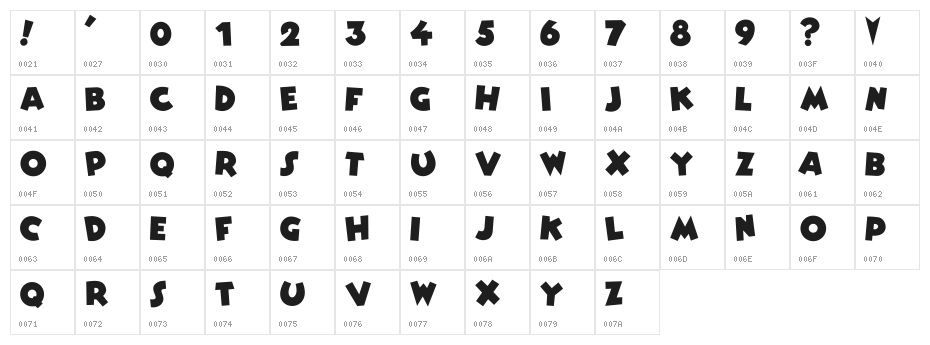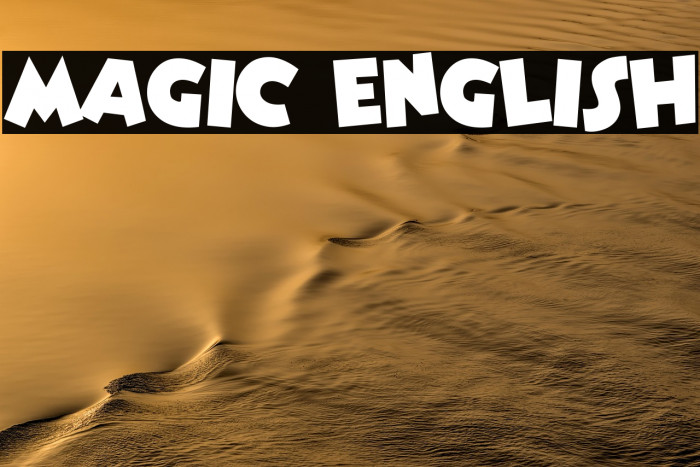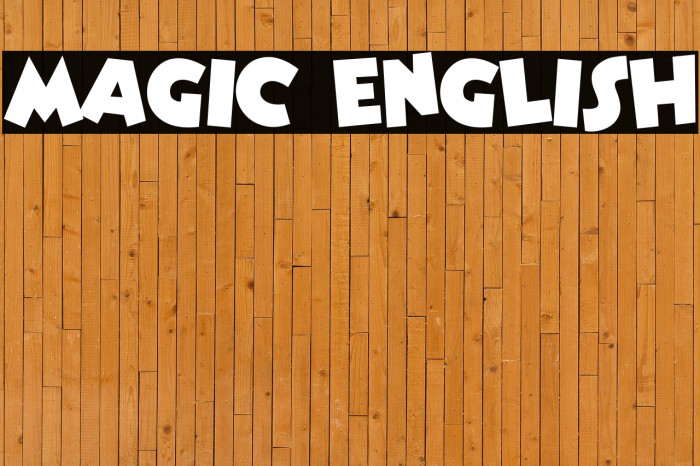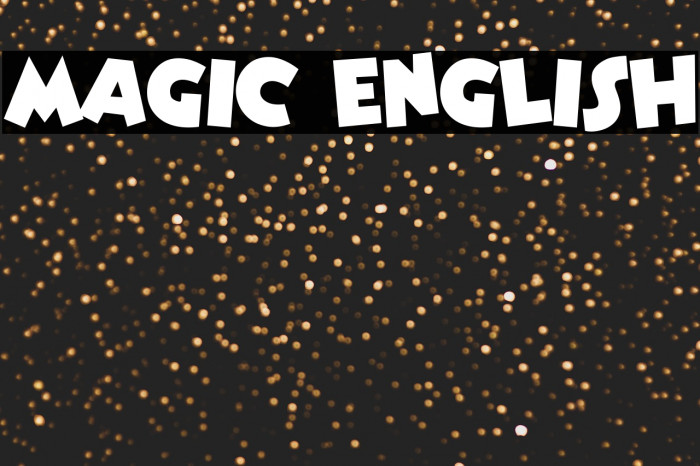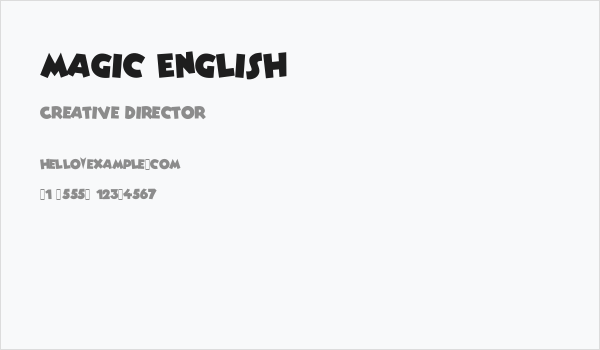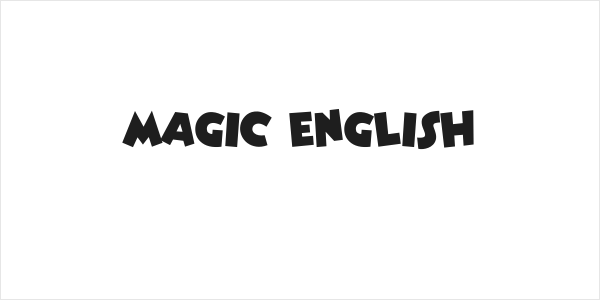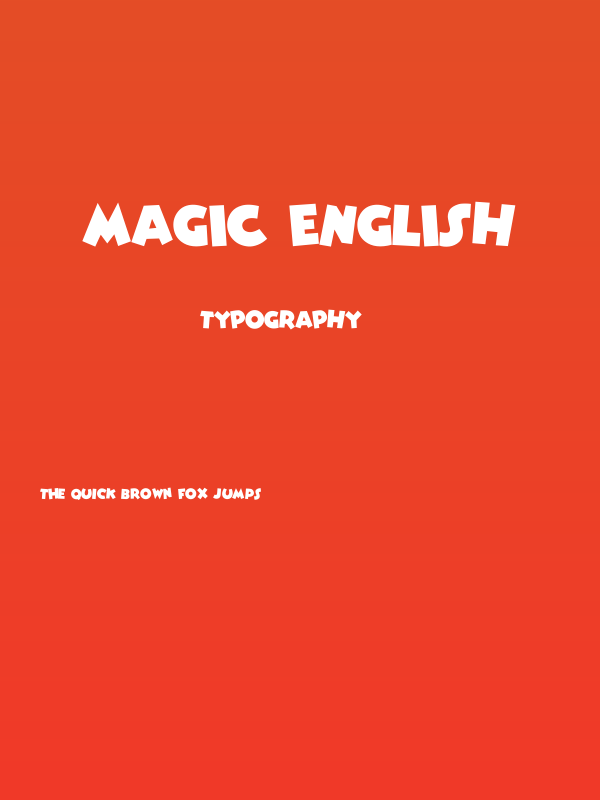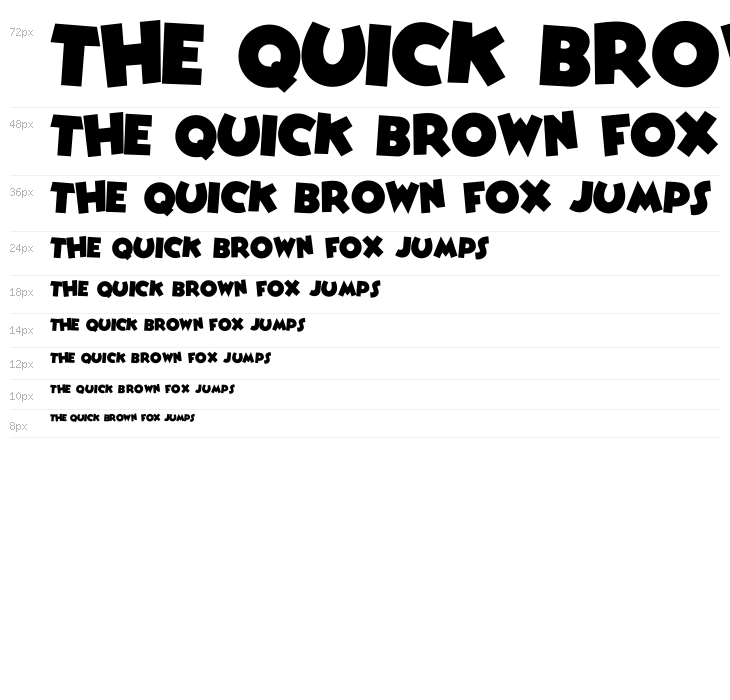
Magic English Font
Magic English Description
This playful and bold font features thick, rounded characters with a whimsical, cartoon-like appearance. The letters are slightly irregular, giving them a lively and dynamic feel. The strokes are consistently thick, contributing to a strong visual impact. The font is designed to capture attention and convey a sense of fun and creativity. It is well-suited for projects that require a bold and engaging typeface, such as children's books, comic strips, or playful branding. The numbers and punctuation maintain the same playful style, ensuring consistency across all characters.
| Overall Style | Playful, Cartoon-like |
| Proposed Projects | Ideal for children's books, comic strips, playful branding, and creative posters. |